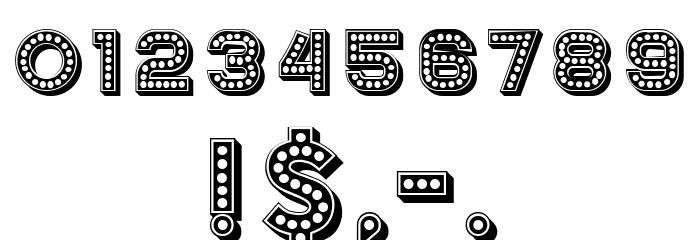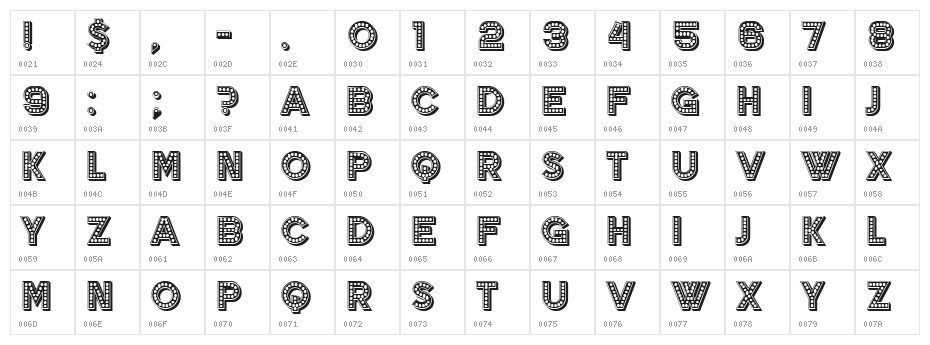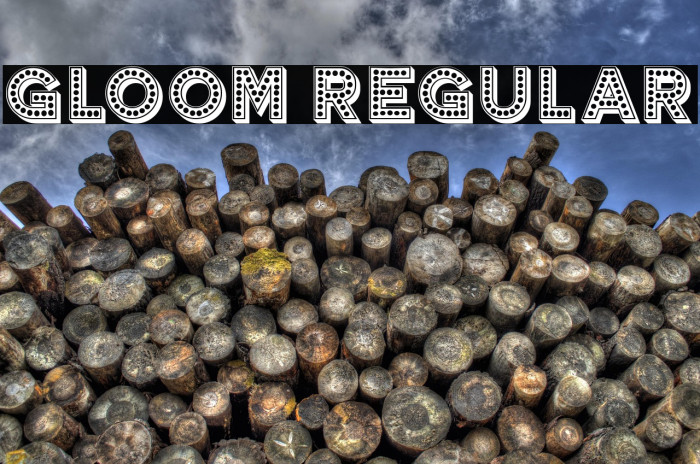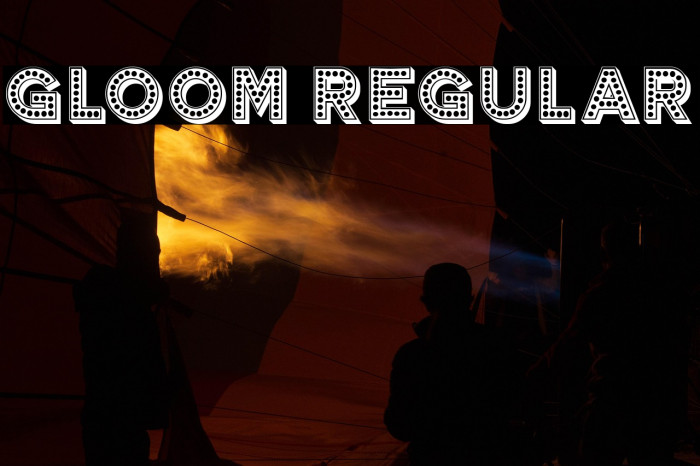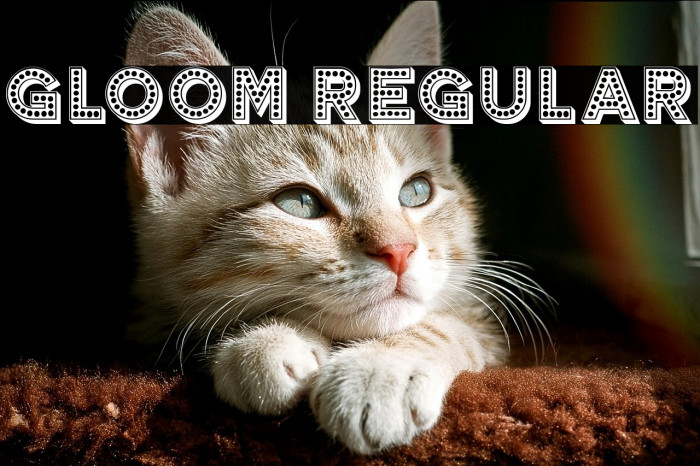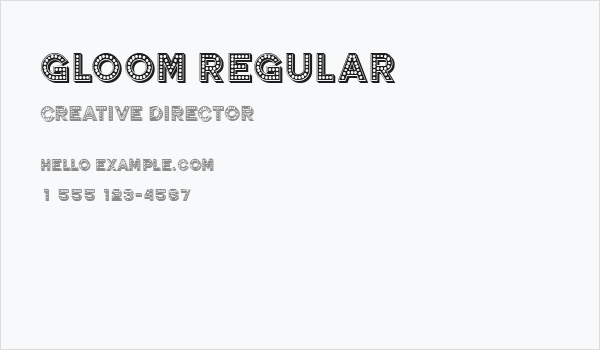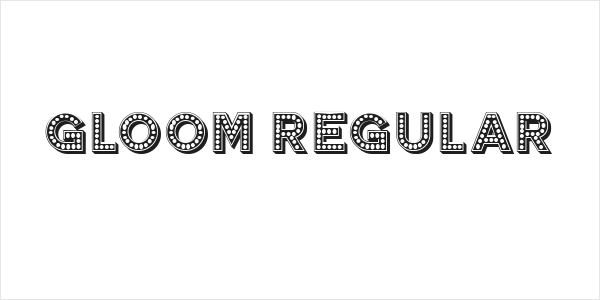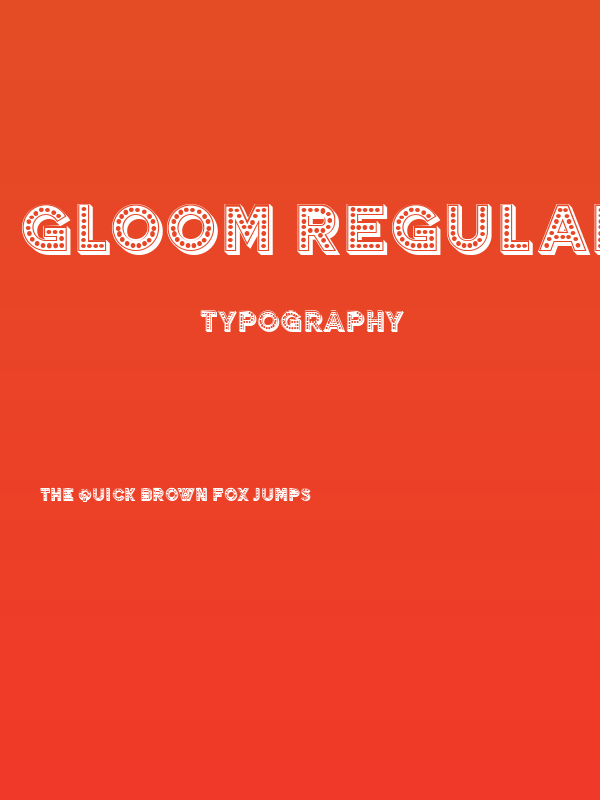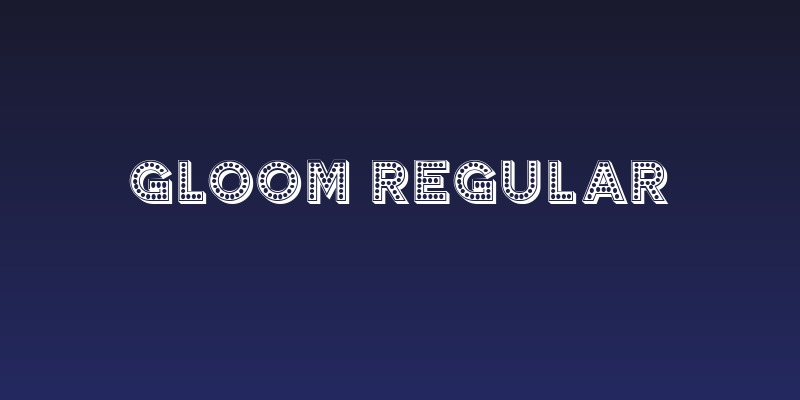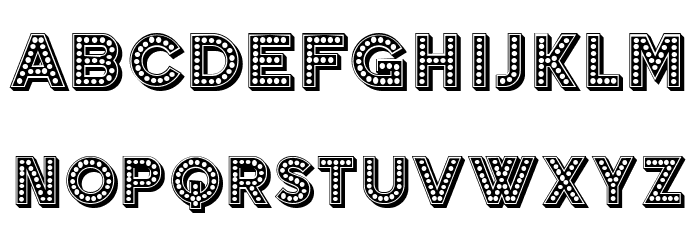
Gloom Regular Font
Gloom Regular Description
This font features a bold, decorative style with a marquee light bulb effect, reminiscent of vintage theater signs. Each character is outlined with a thick border and filled with evenly spaced circular dots, mimicking illuminated bulbs. The uppercase and lowercase letters maintain a consistent design, providing a cohesive look. The numerals and special characters follow the same aesthetic, ensuring uniformity across all glyphs. This font exudes a playful yet nostalgic vibe, making it ideal for eye-catching designs.
| Use Case | Headlines, Logos, Signage |
| Proposed Projects | Ideal for theater posters, retro-themed events, signage, and any design needing a vintage, eye-catching appeal. |